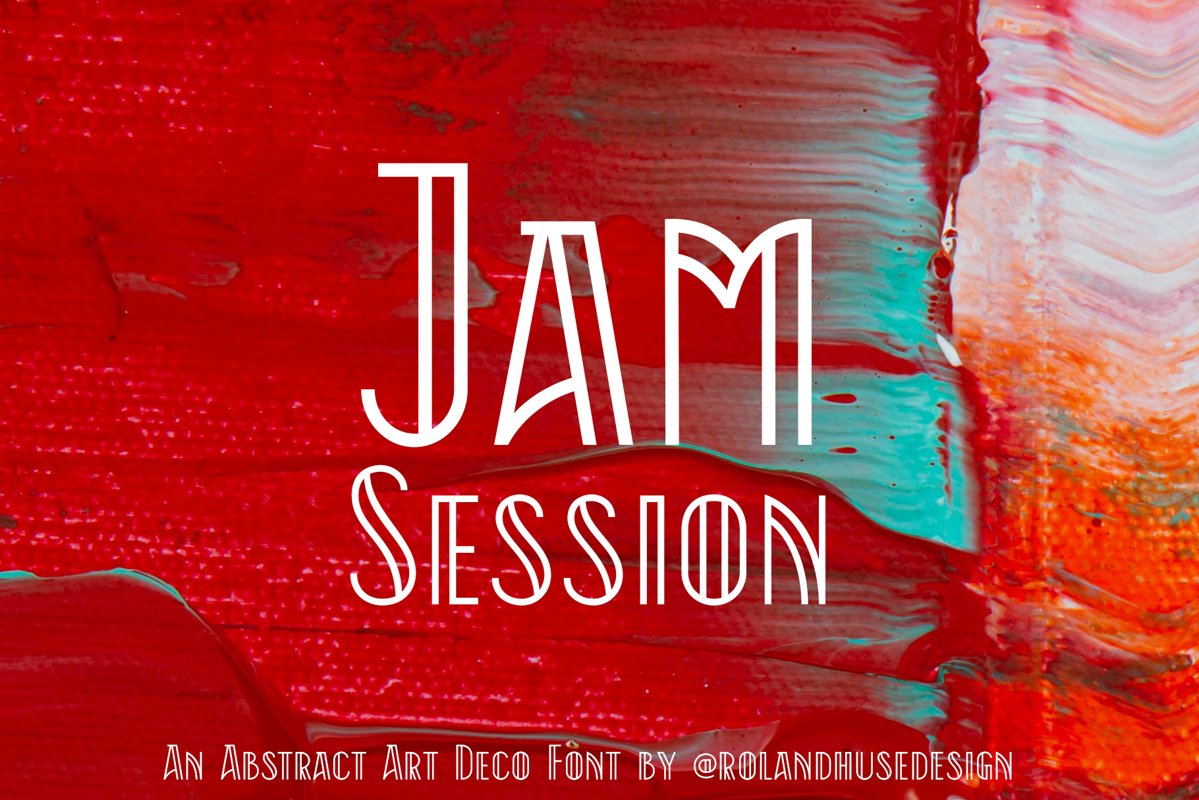
Created By Roland Huse
Jam Session
JAM SESSION is an Art Deco abstract sans serif All Caps display font. Great for posters and large texts with few letters.Please note that this is primarily for headlines, logos posters in large size.Contains all European Latin accented characters, basic symbols and punctuation.